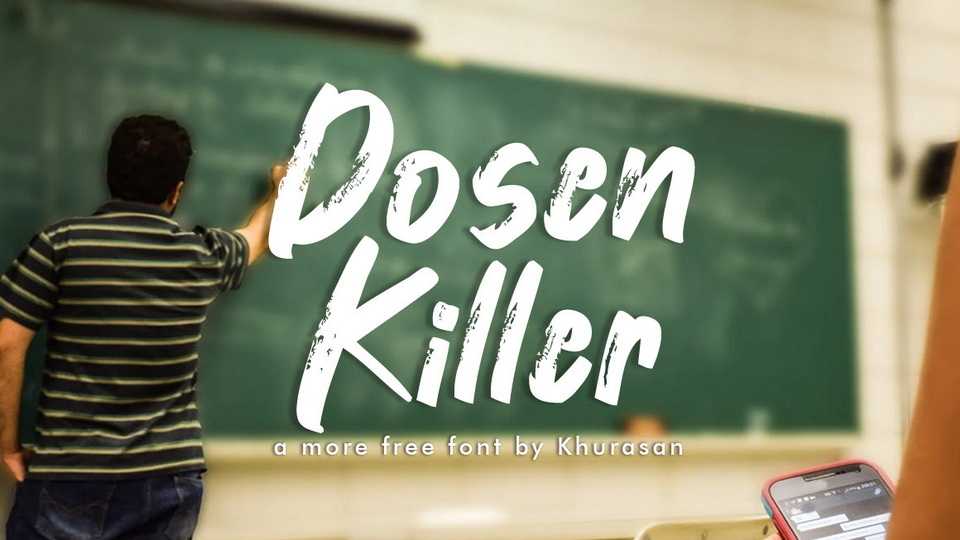
Download Dosen Killer font, a modern hand painted typeface with a brushed texture. Dosen Killer is perfect for posters, logos, magazines, book covers, banners, and many more!